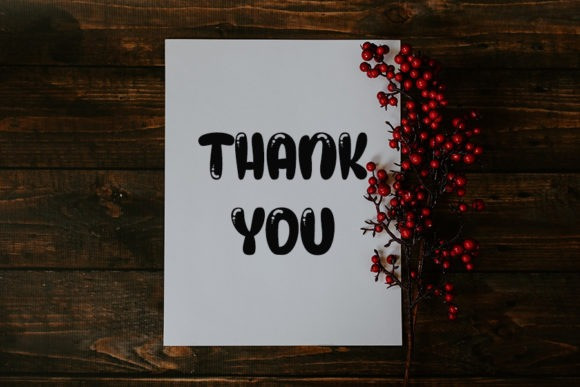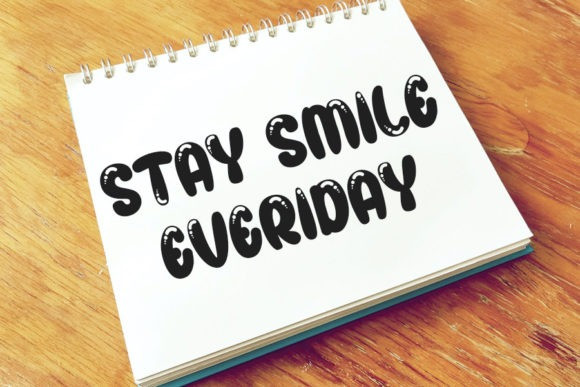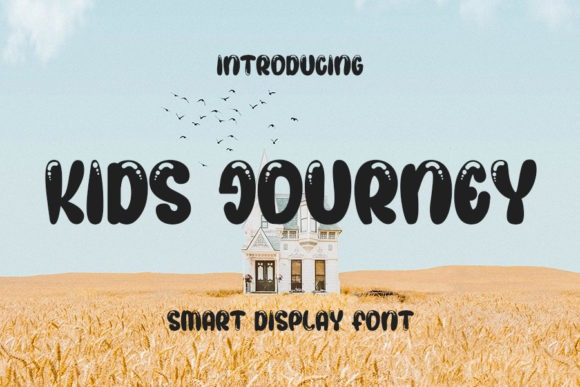
Kids Journey Font
Kids Journey Display Font is a fun, bubbly and cool display font. Whatever the topic, this font will be a wonderful asset to your font library, as it has the potential to enhance any creation.